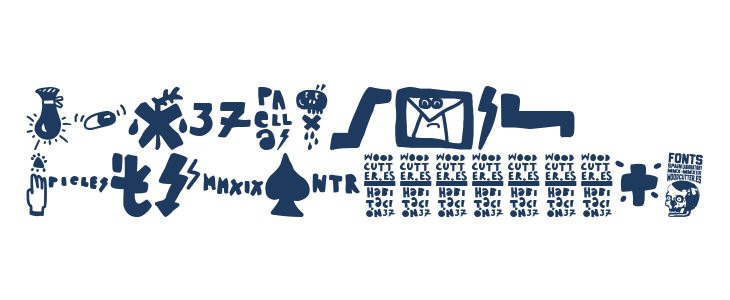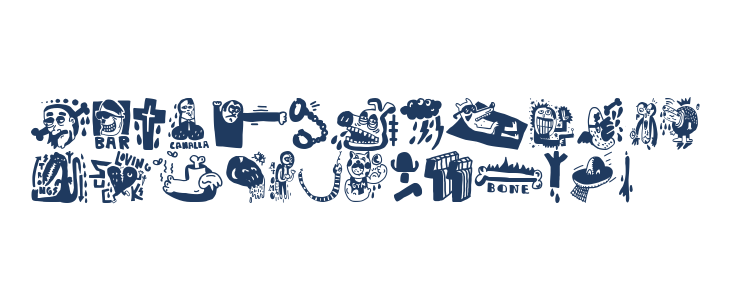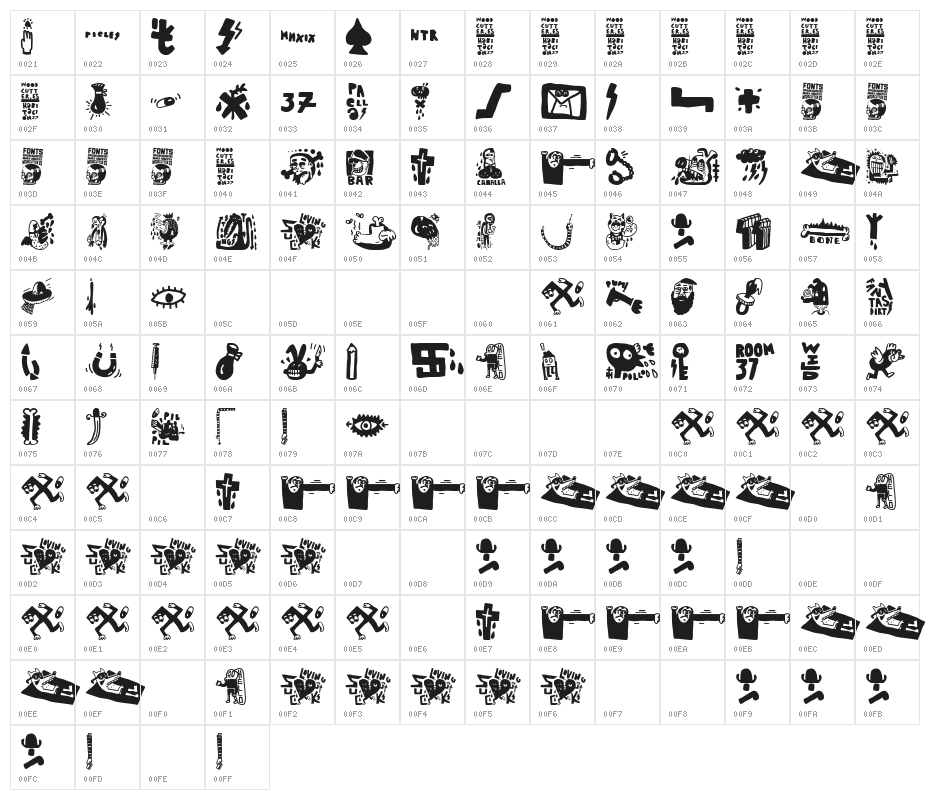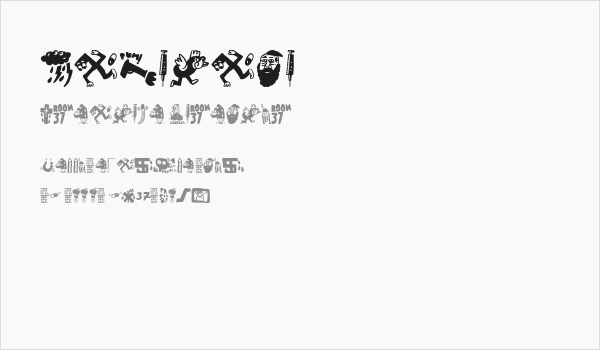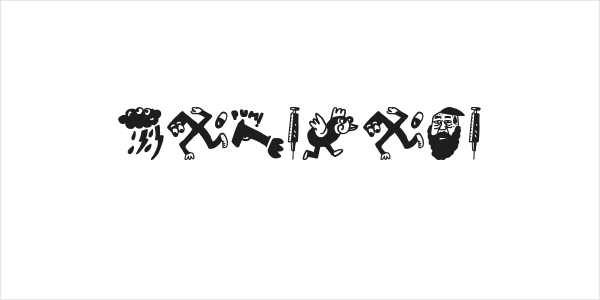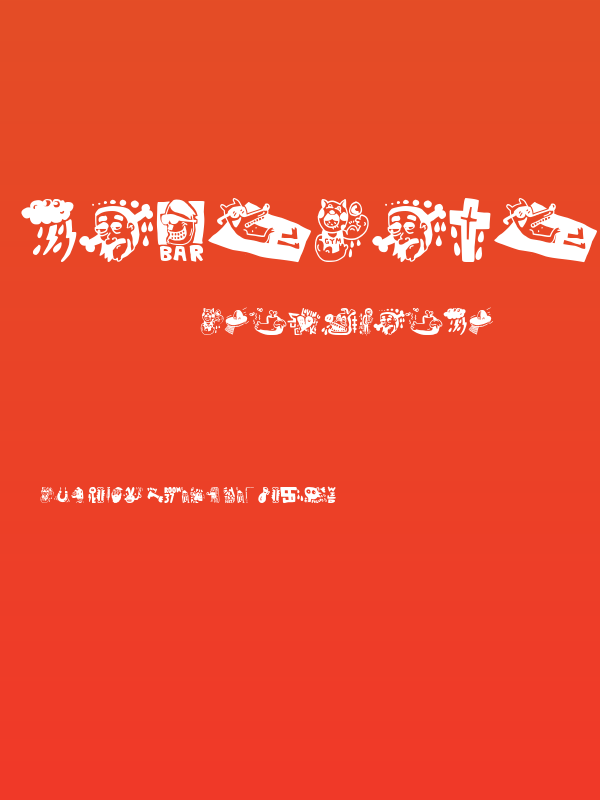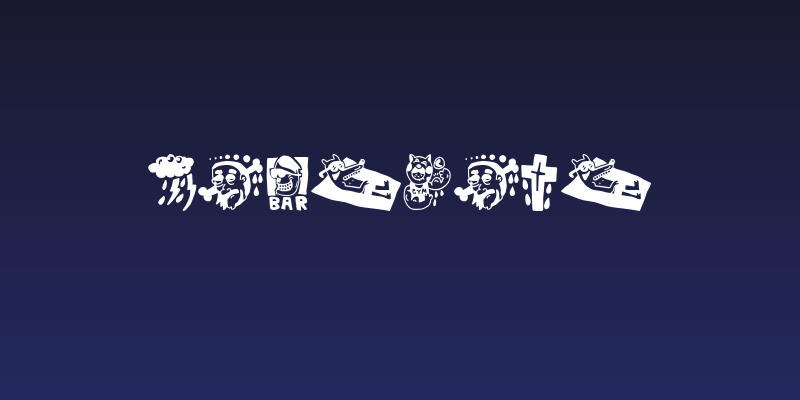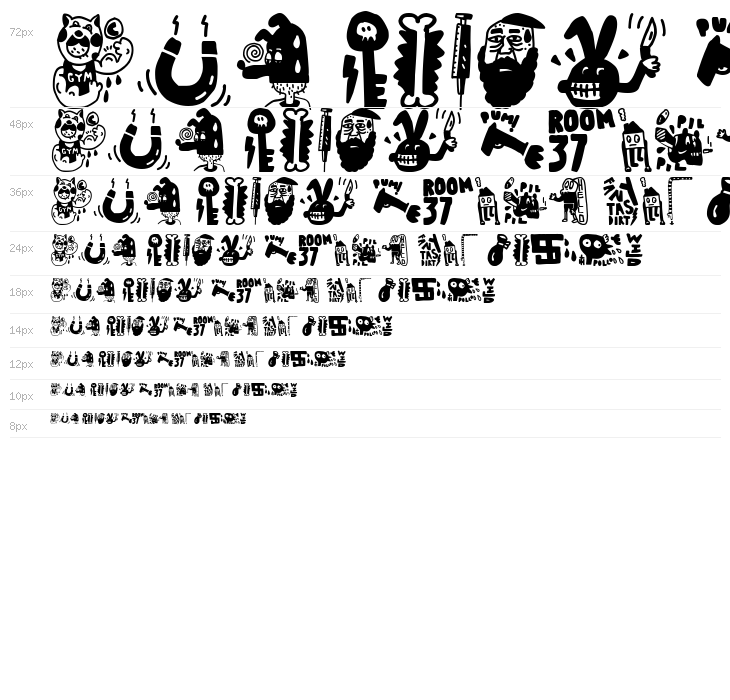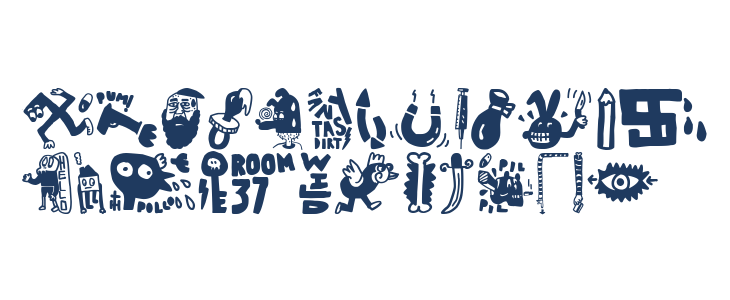
Habitaci Font
Habitaci Description
| Overall Style | Decorative, Playful, Artistic |
| Use Case | Logos, Posters, Headlines, Art projects |
| Proposed Projects | ChildrenΓ’β¬β’s books, posters, album covers, party invitations, branding for creative businesses, art projects. |